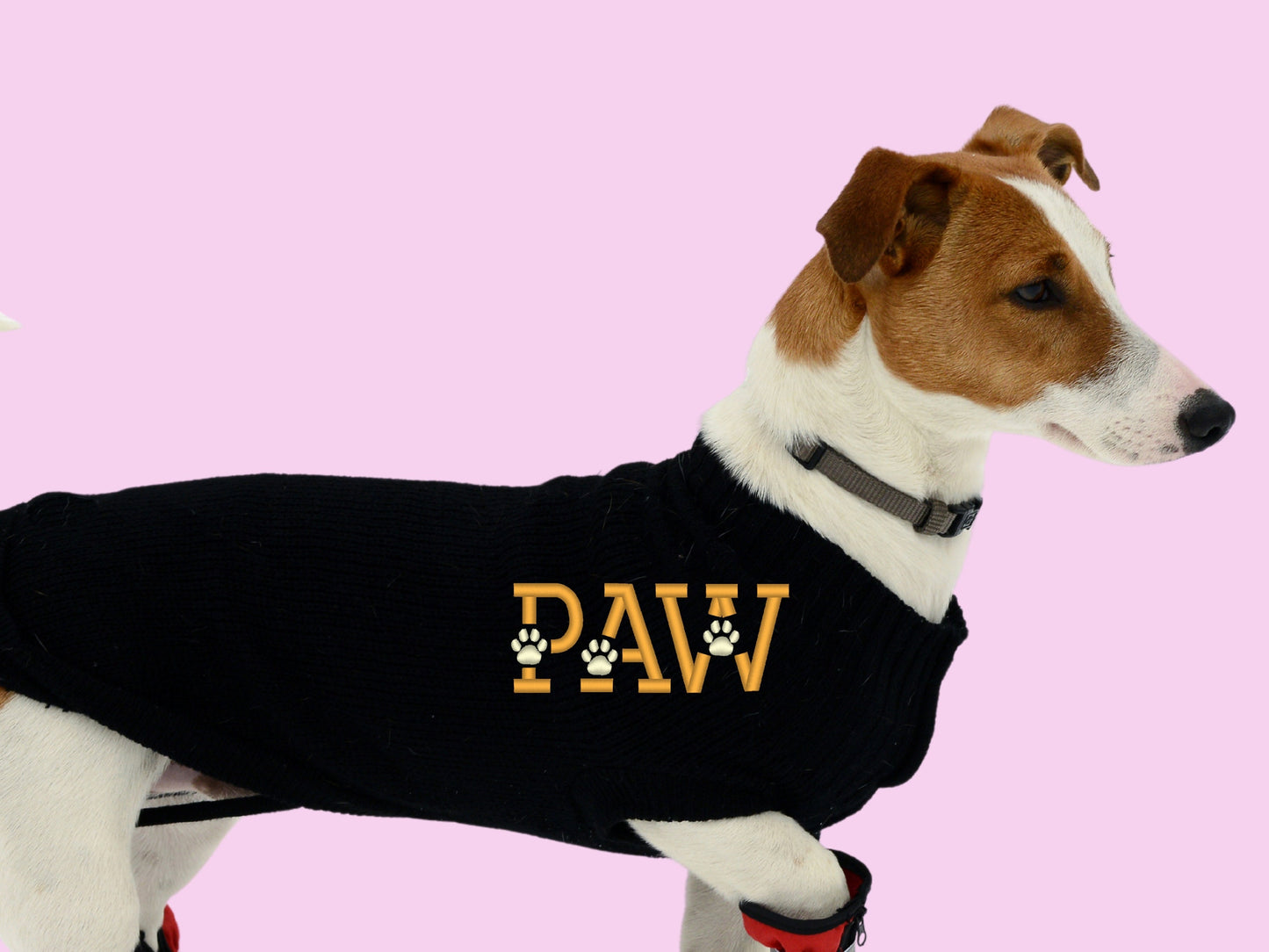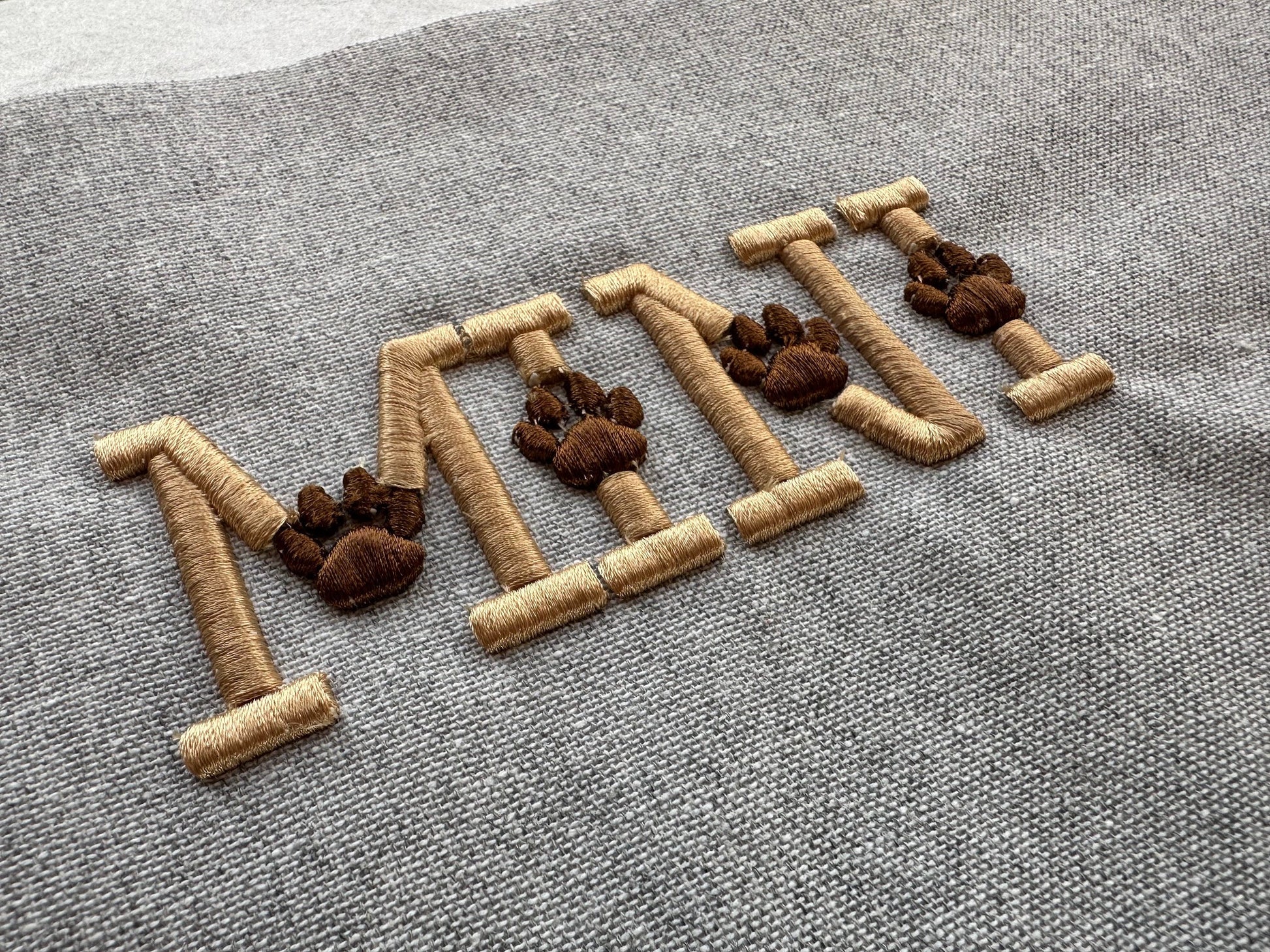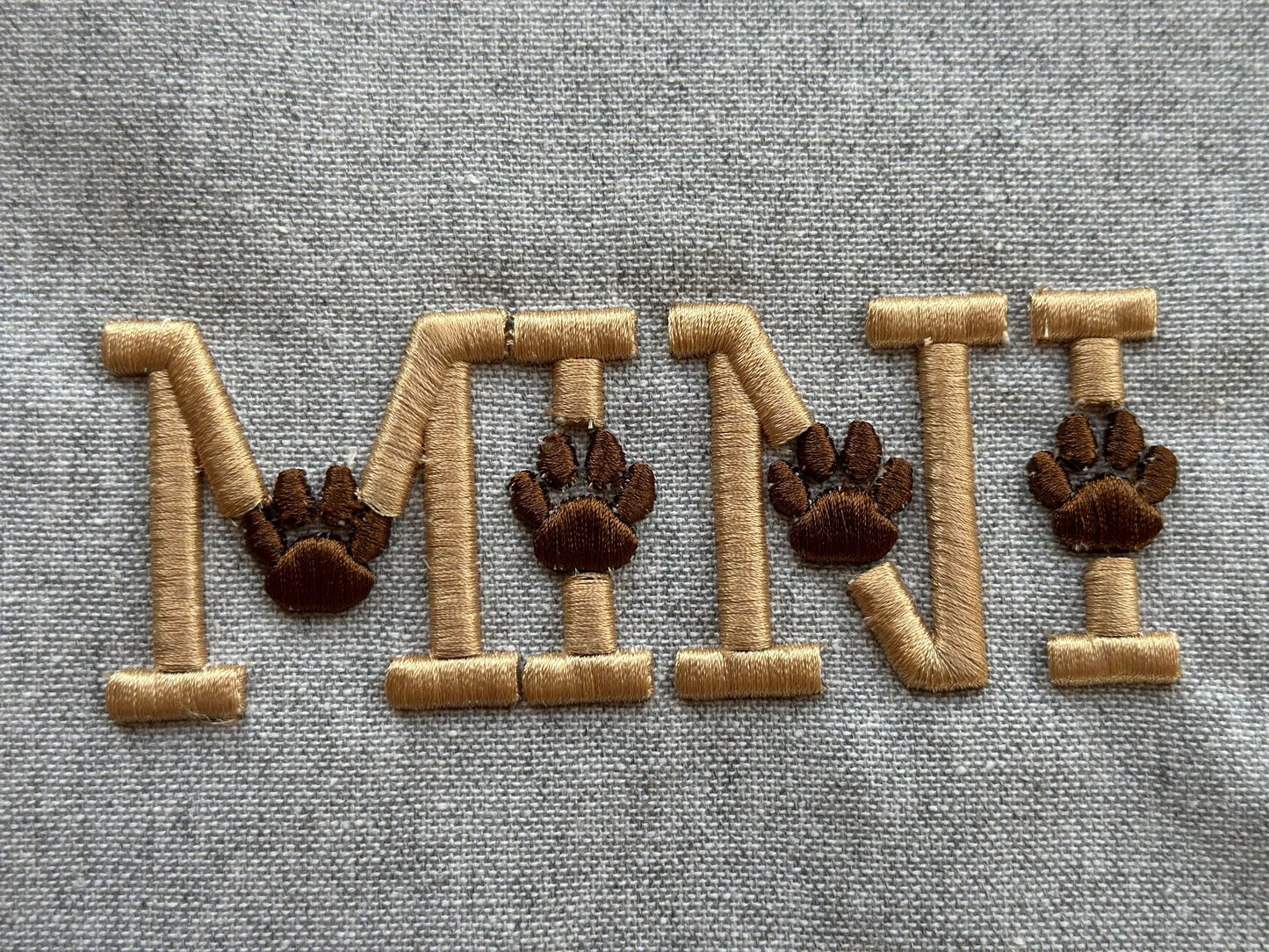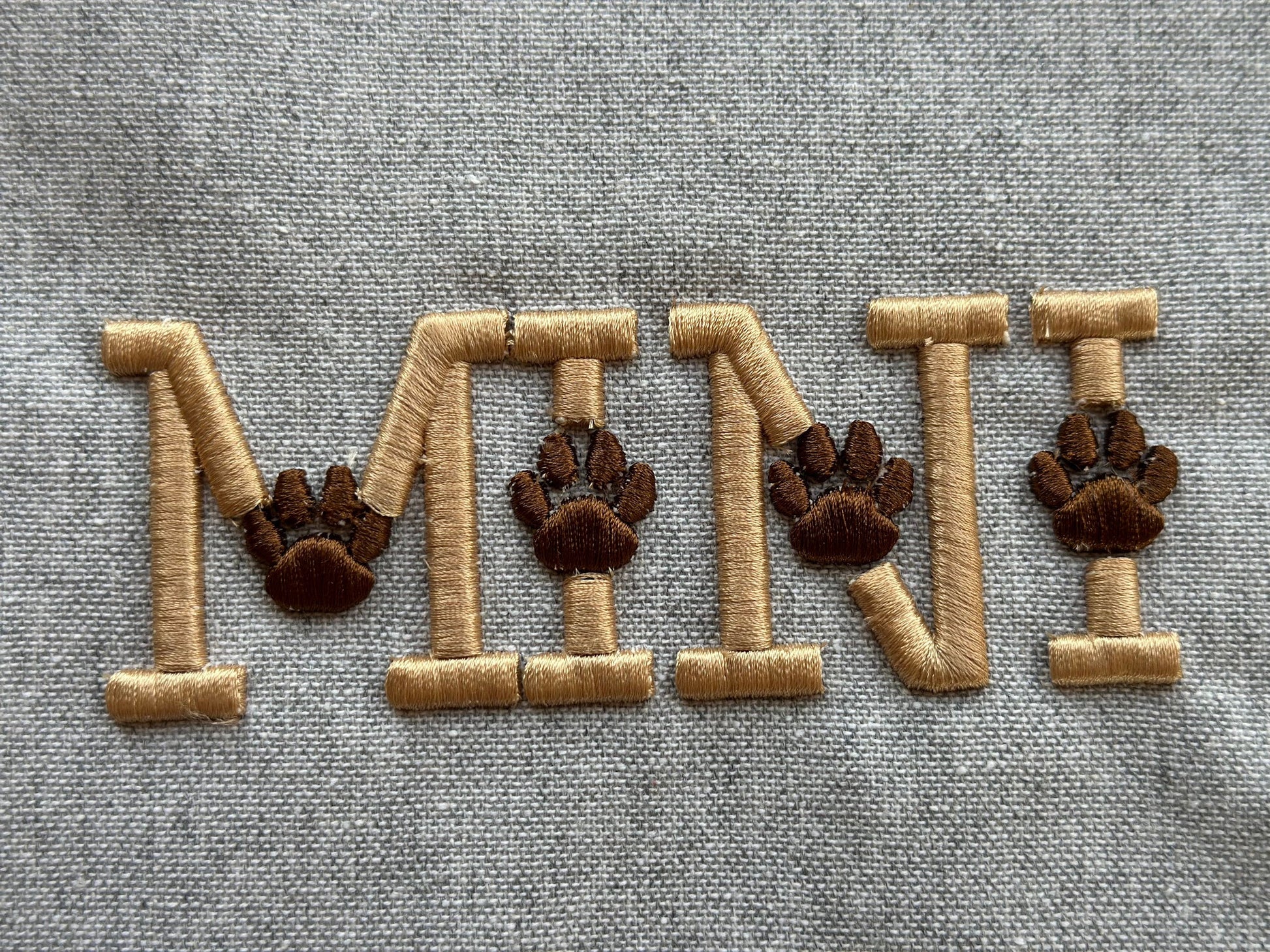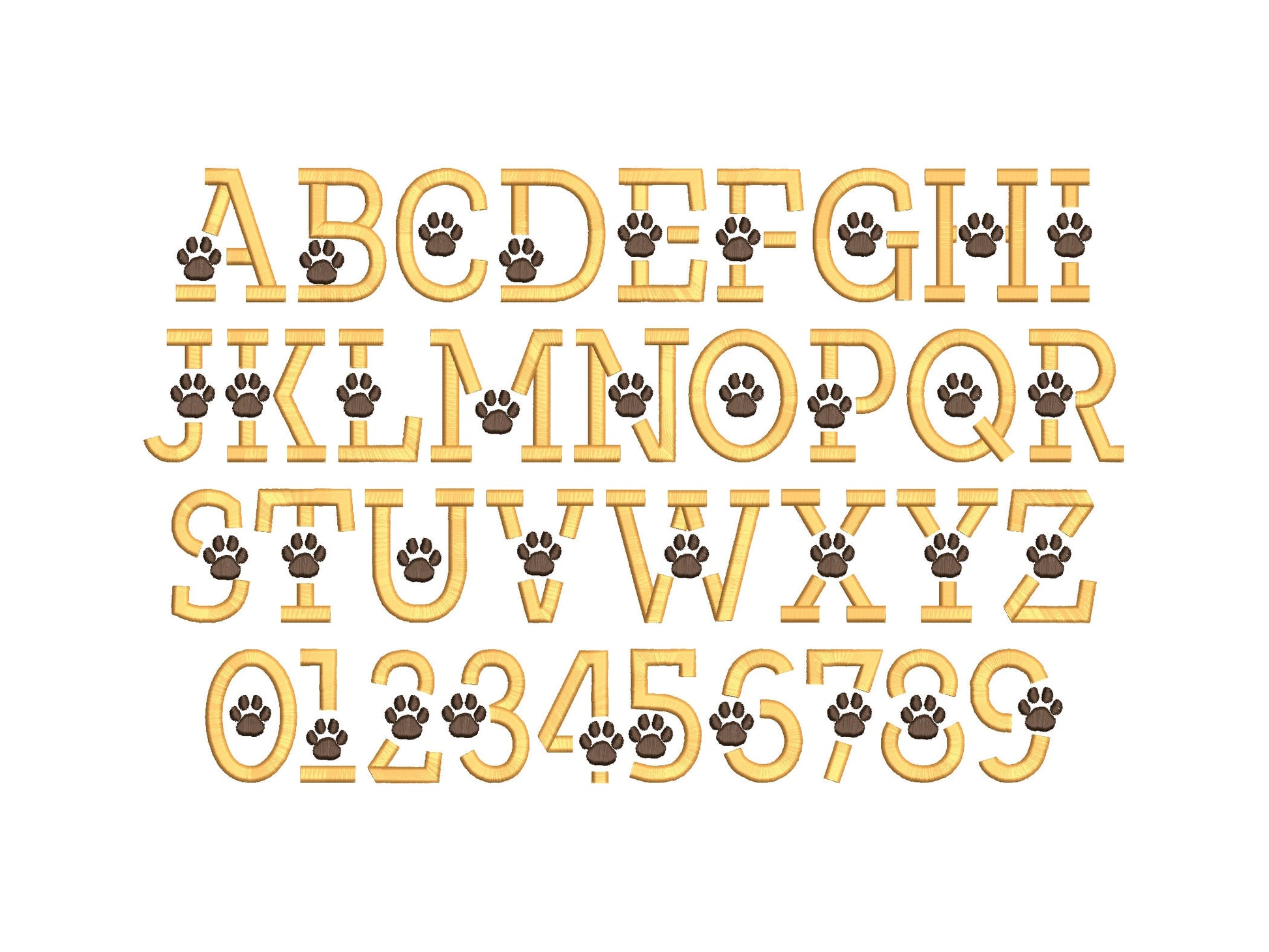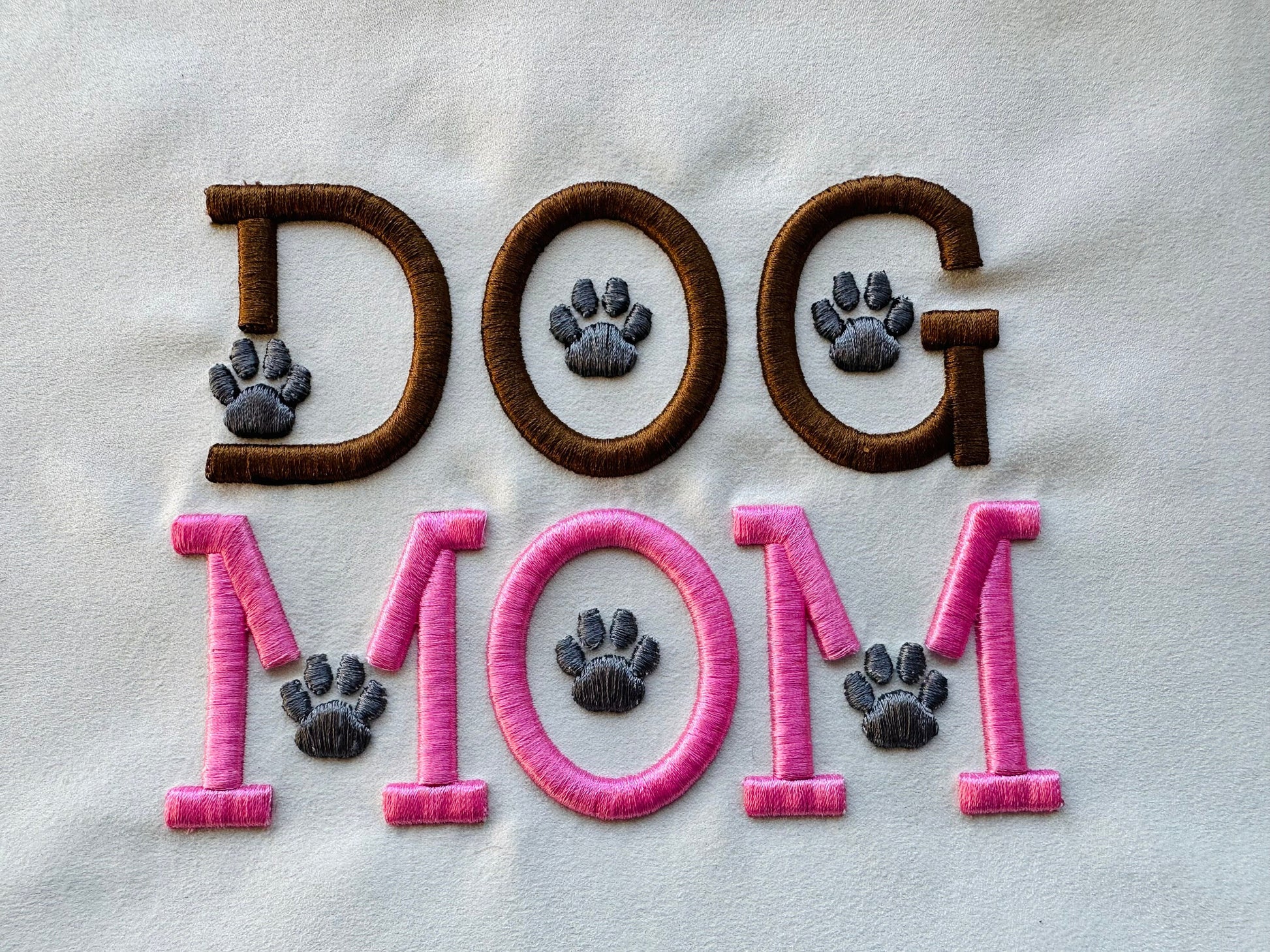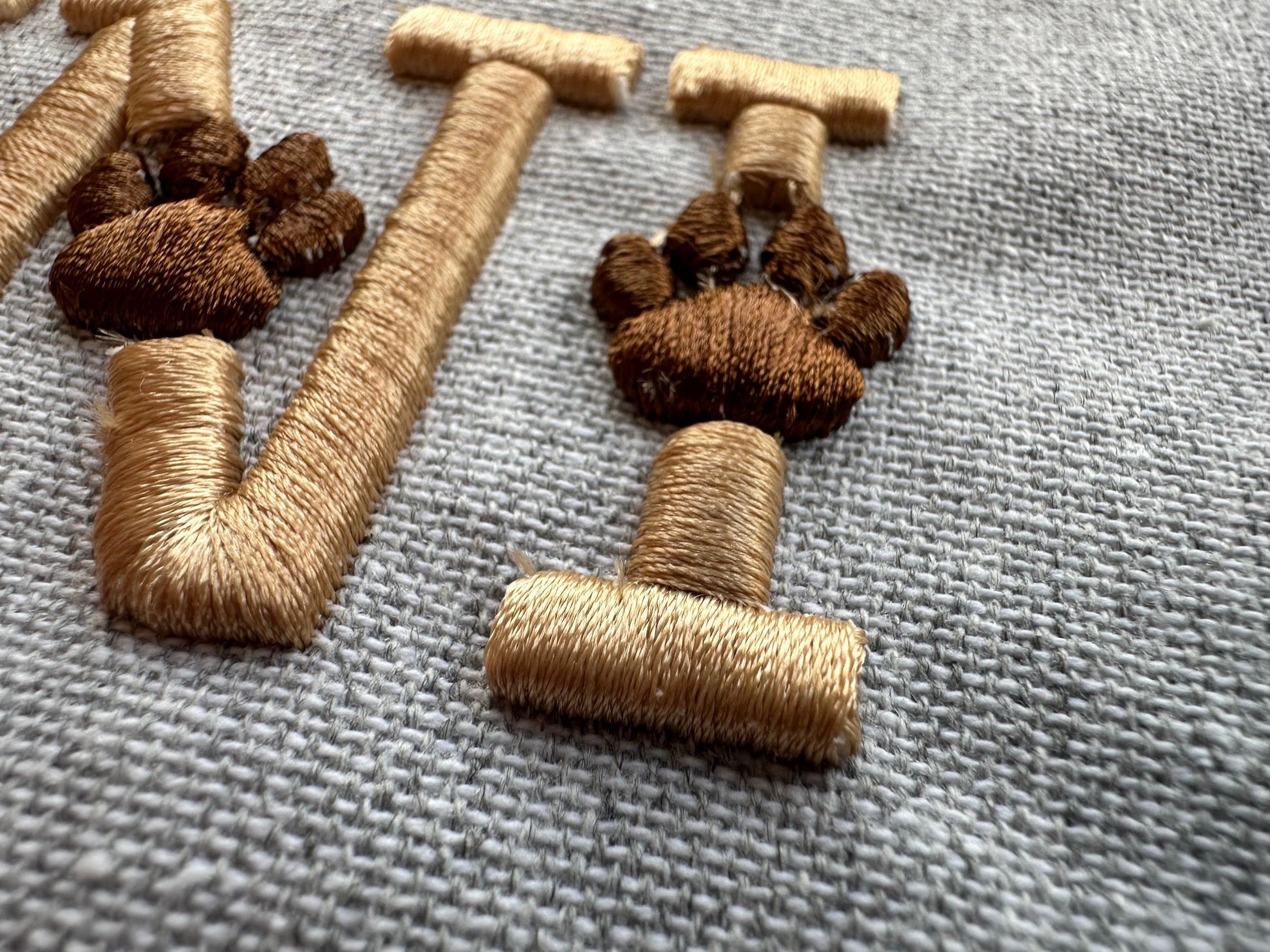
Puff Puffy Foam Dog Cat Paw Font
Sizes (inches): 1.8", 2.2", 2.6"
Included: Uppercase A-Z, Numbers 0-9
A cute 3D puffy block font with paw prints, stitched over foam. Great for pet names, dog and cat lovers' caps, shirts and bags.
Uppercase letters A to Z and numbers 0 to 9. Three sizes: 1.8, 2.2 and 2.6 inches. Needs puffy foam; 3 mm foam works well.
• 3D puffy foam paw print font
• Uppercase A to Z, numbers 0 to 9
• 3 sizes: 1.8, 2.2 and 2.6 in